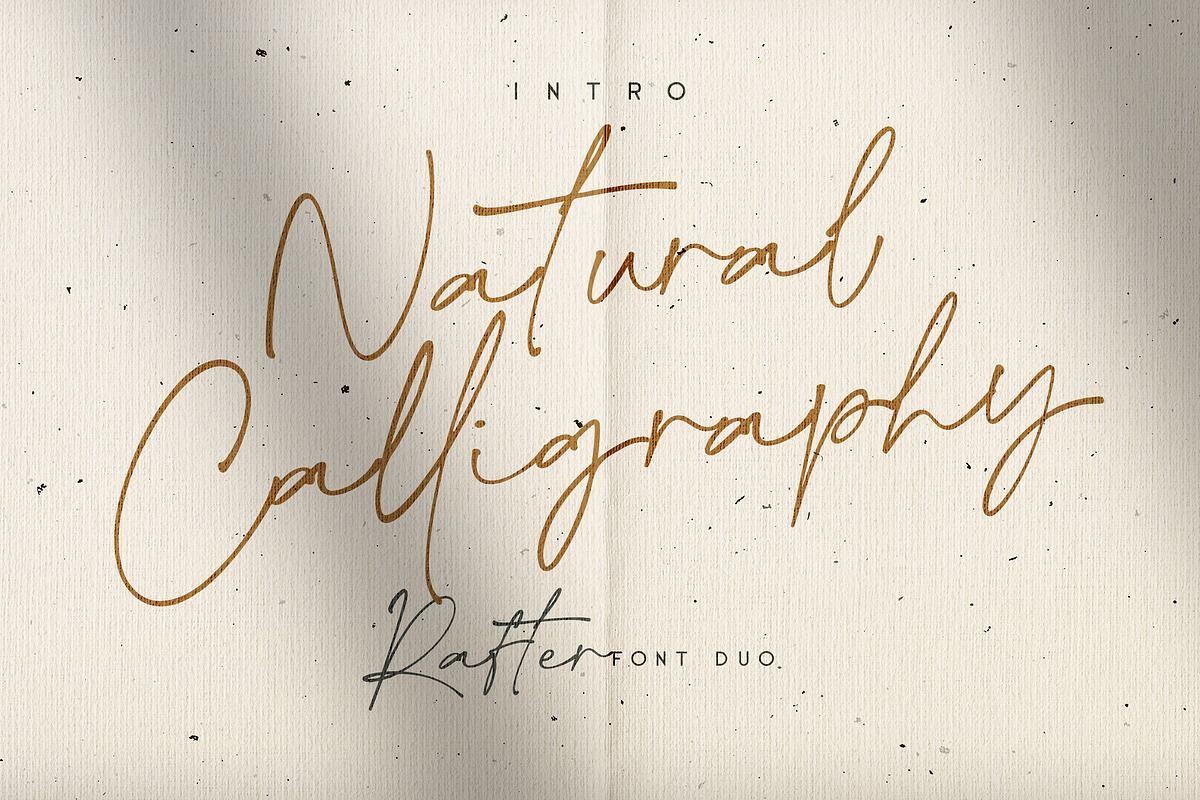
Rafter Handwriting Fonts Duo Free Download is a stylish and versatile font pairing designed to bring a personal, handwritten touch to your designs. This duo includes a flowing script font and a complementary sans-serif, making it perfect for a wide range of projects, from branding and logos to invitations and social media content. The script font offers elegant and organic curves, while the sans-serif adds balance with its clean and modern lines. Whether you're working on a personalized project, a creative brand identity, or a special event invitation, Rafter Handwriting Fonts Duo Free Download lets you experiment with its unique style in personal projects before purchasing a commercial license. Add authenticity and charm to your designs with this beautifully crafted handwriting font duo.